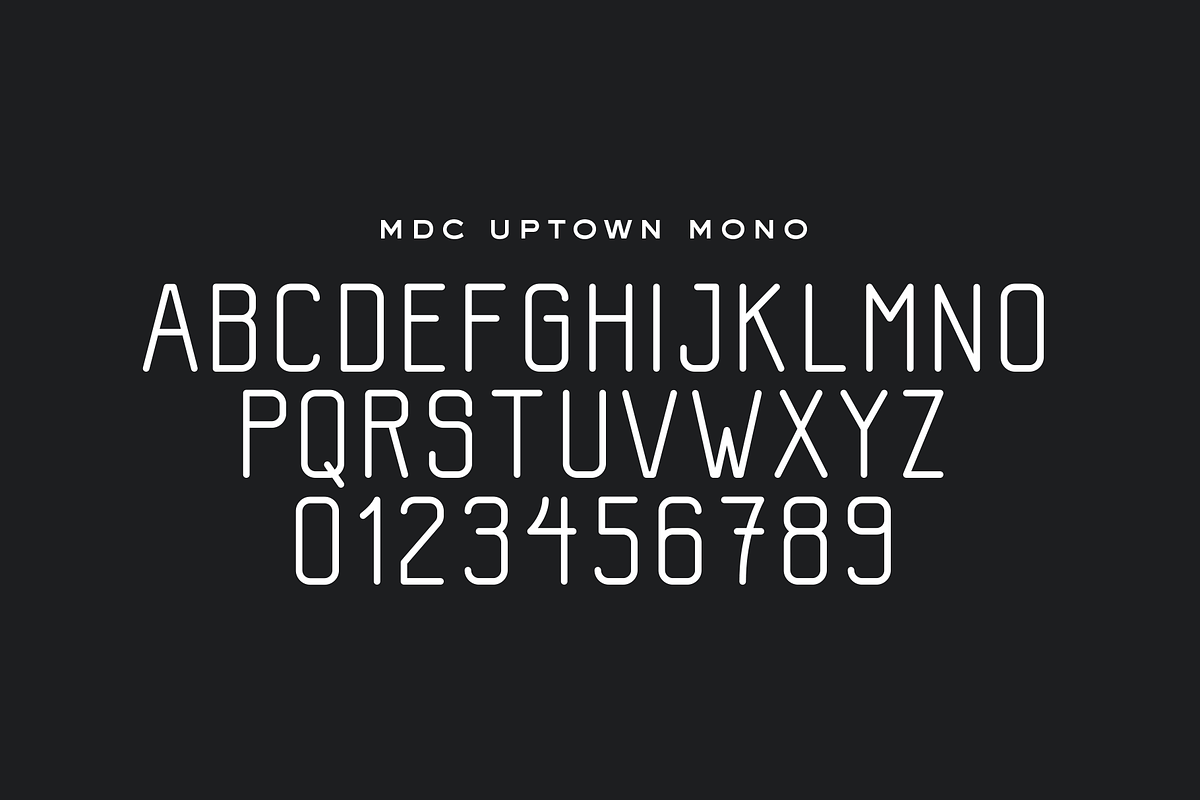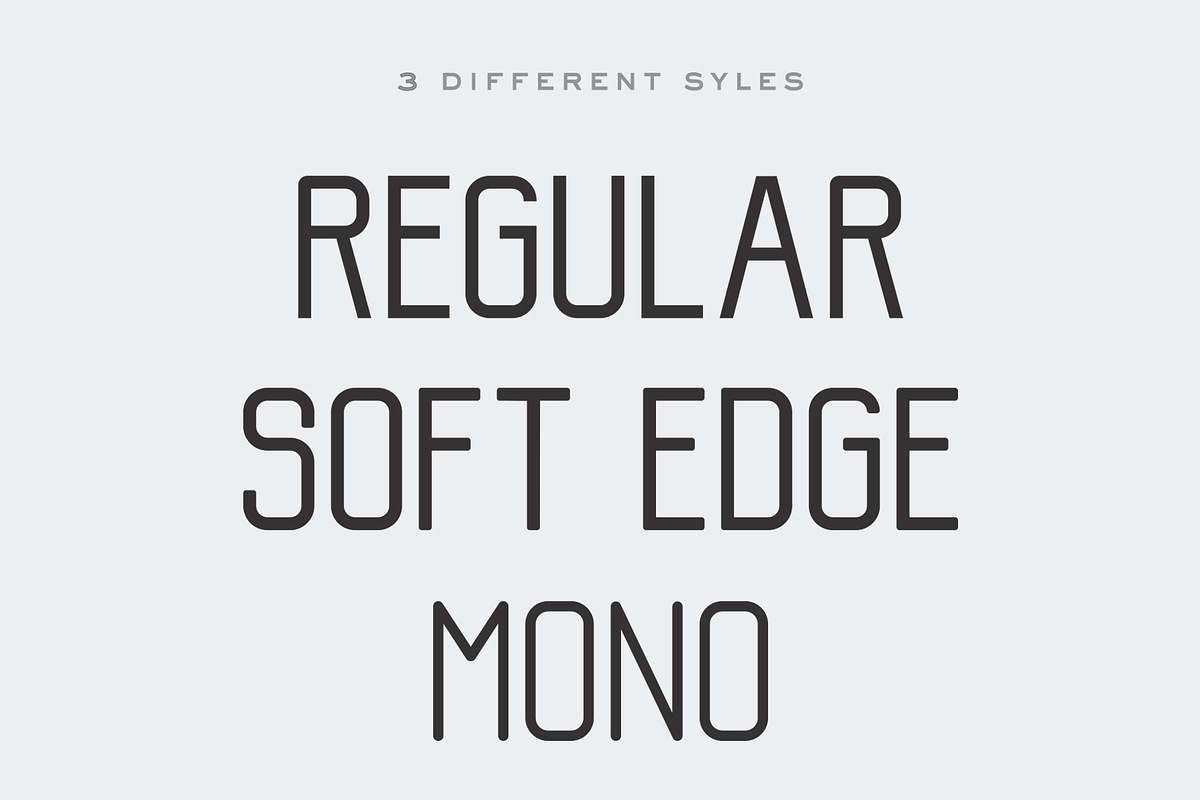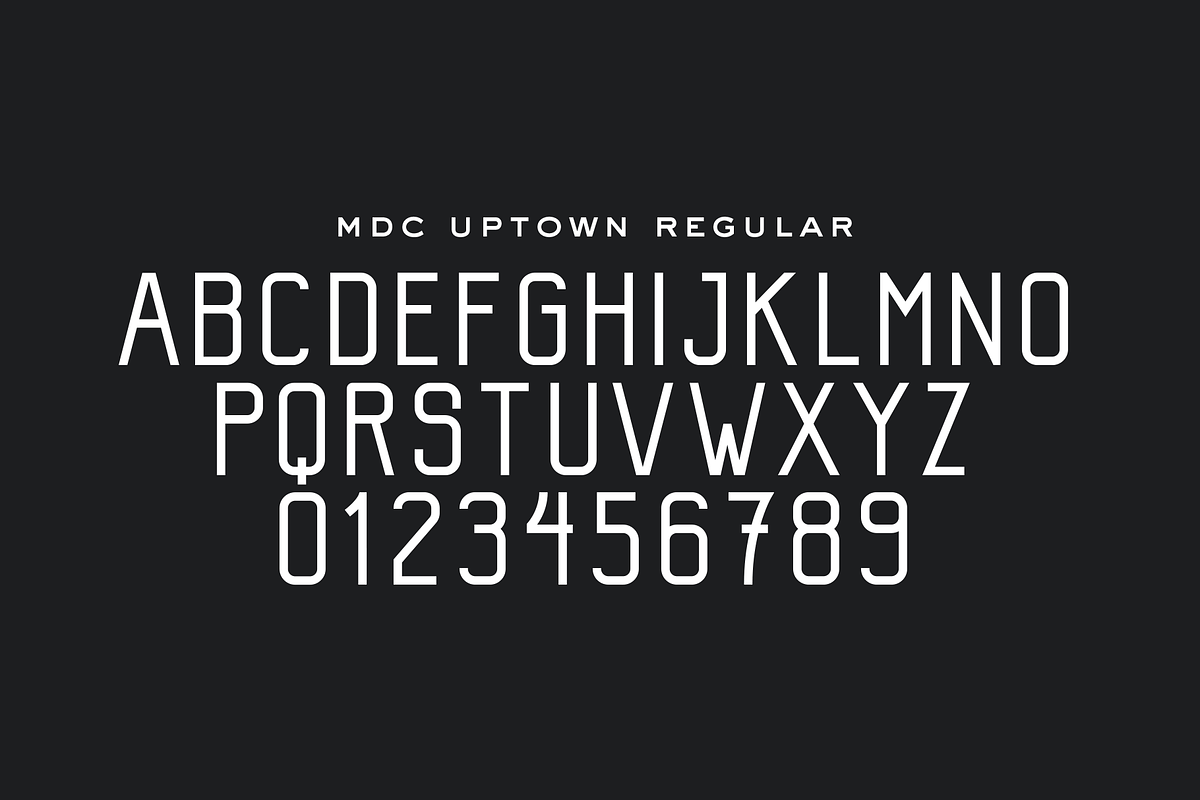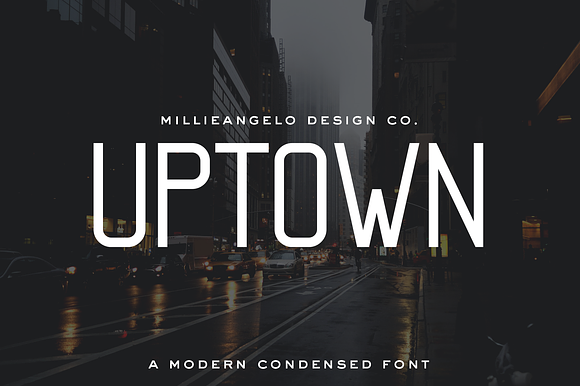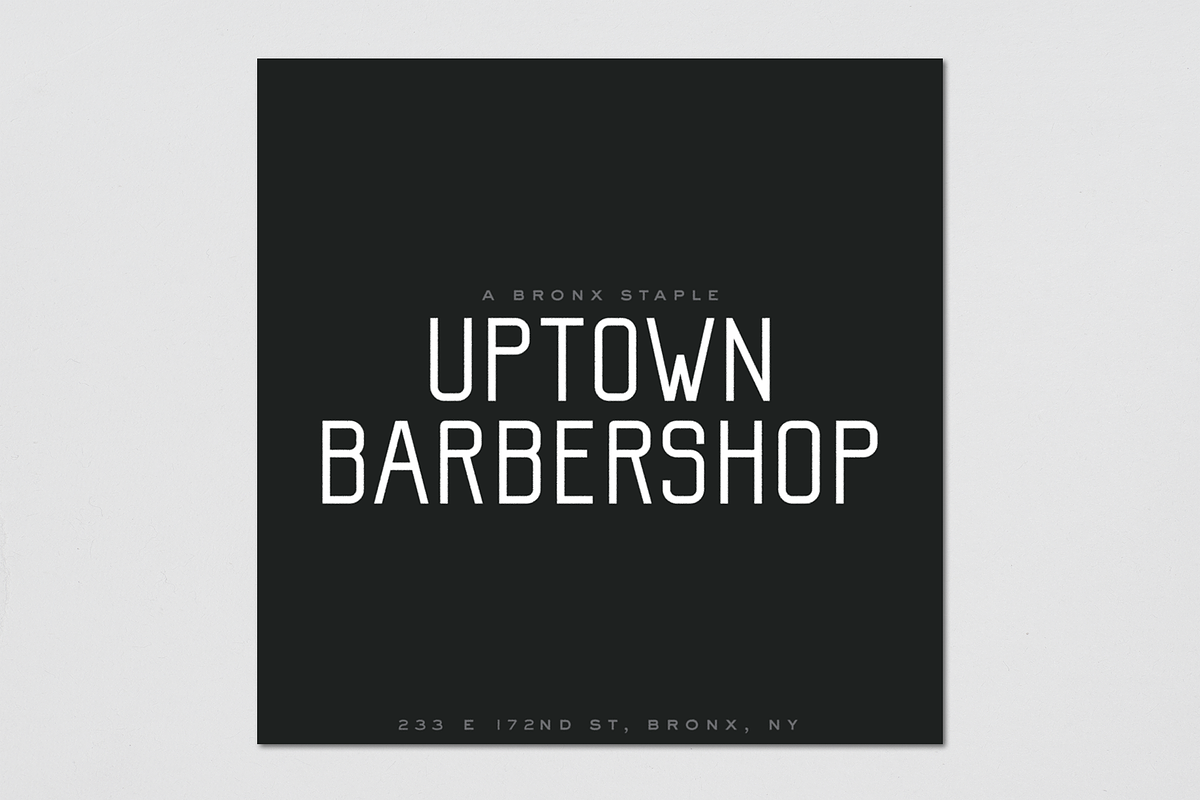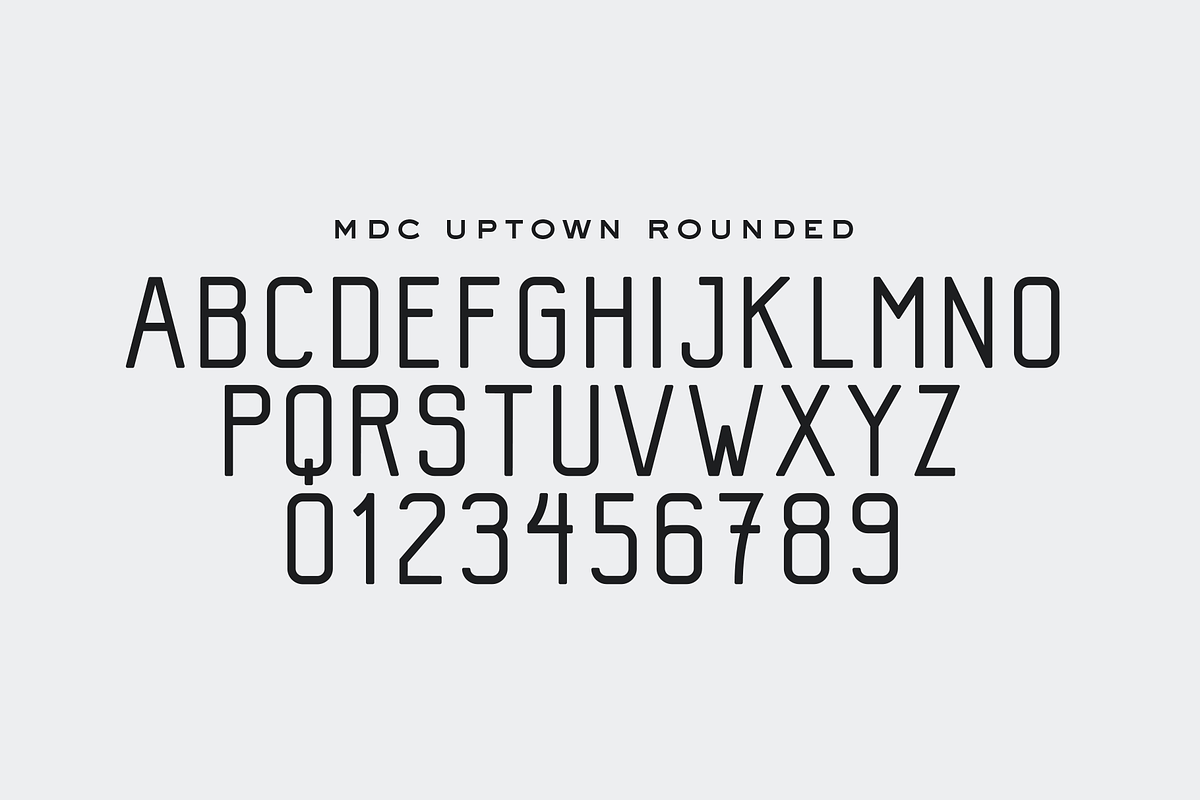
MDC Uptown - A Modern Condensed Font
Uptown is a dynamic, 3 style, modern font. A balance of long letterforms and a high x-height, Uptown is a perfect font to give all of your designs. Uptown has 3 versatile styles: Regular, Soft Edge, and Mono. It works great in any branding, print, or web projects. The different styles give you full range to explore the different application types.